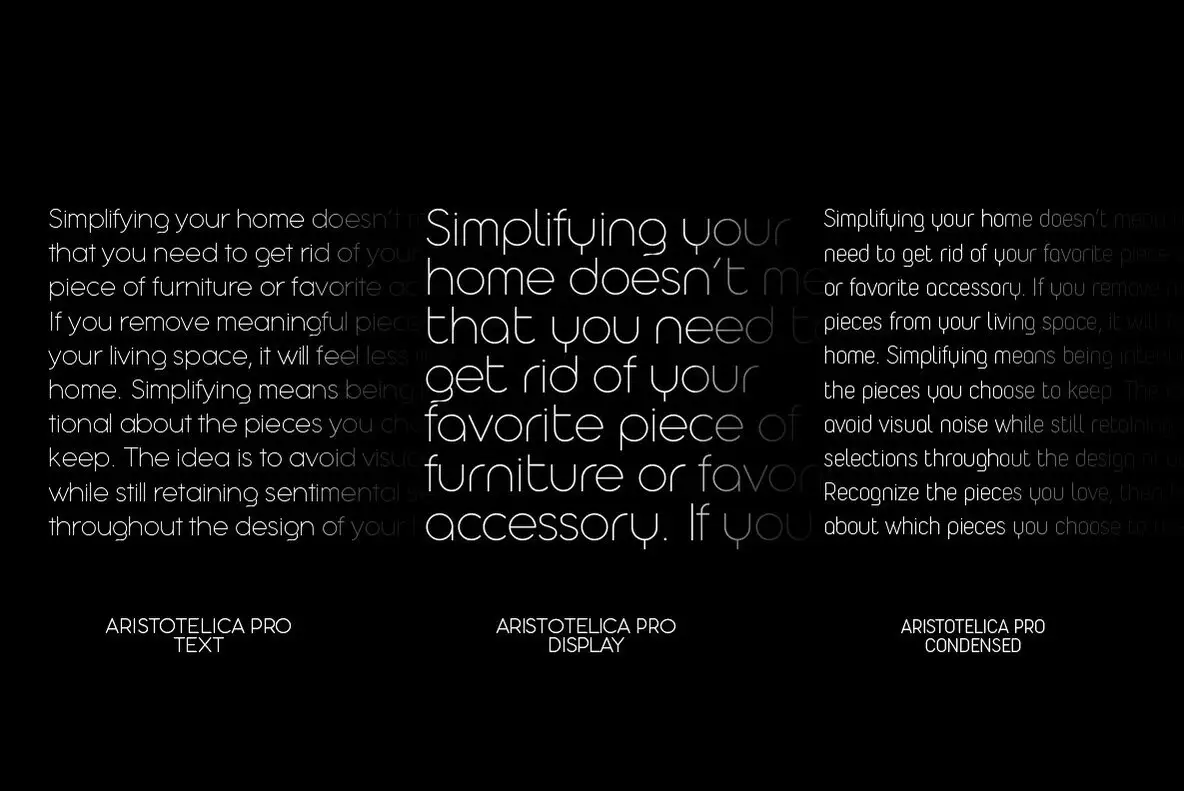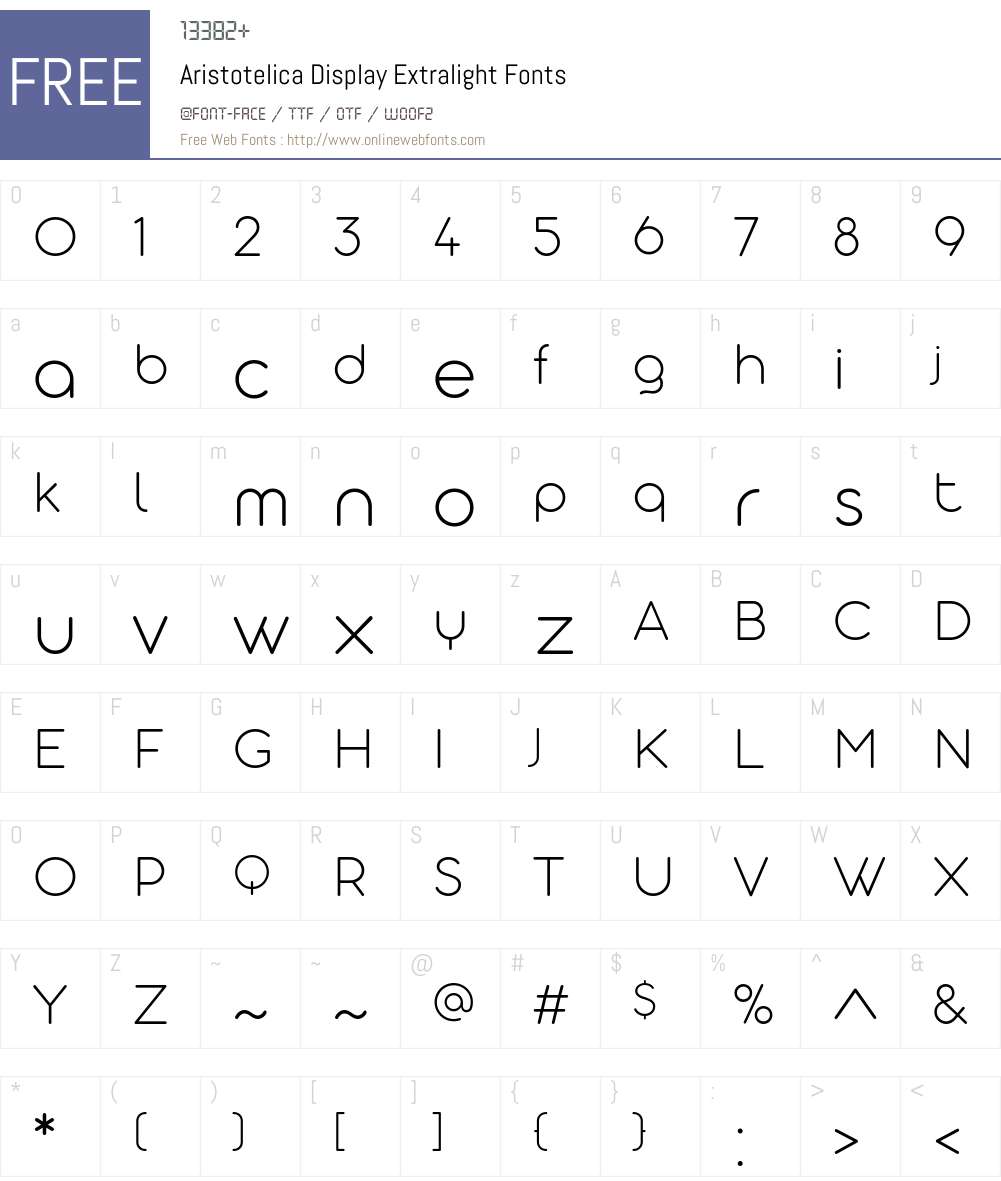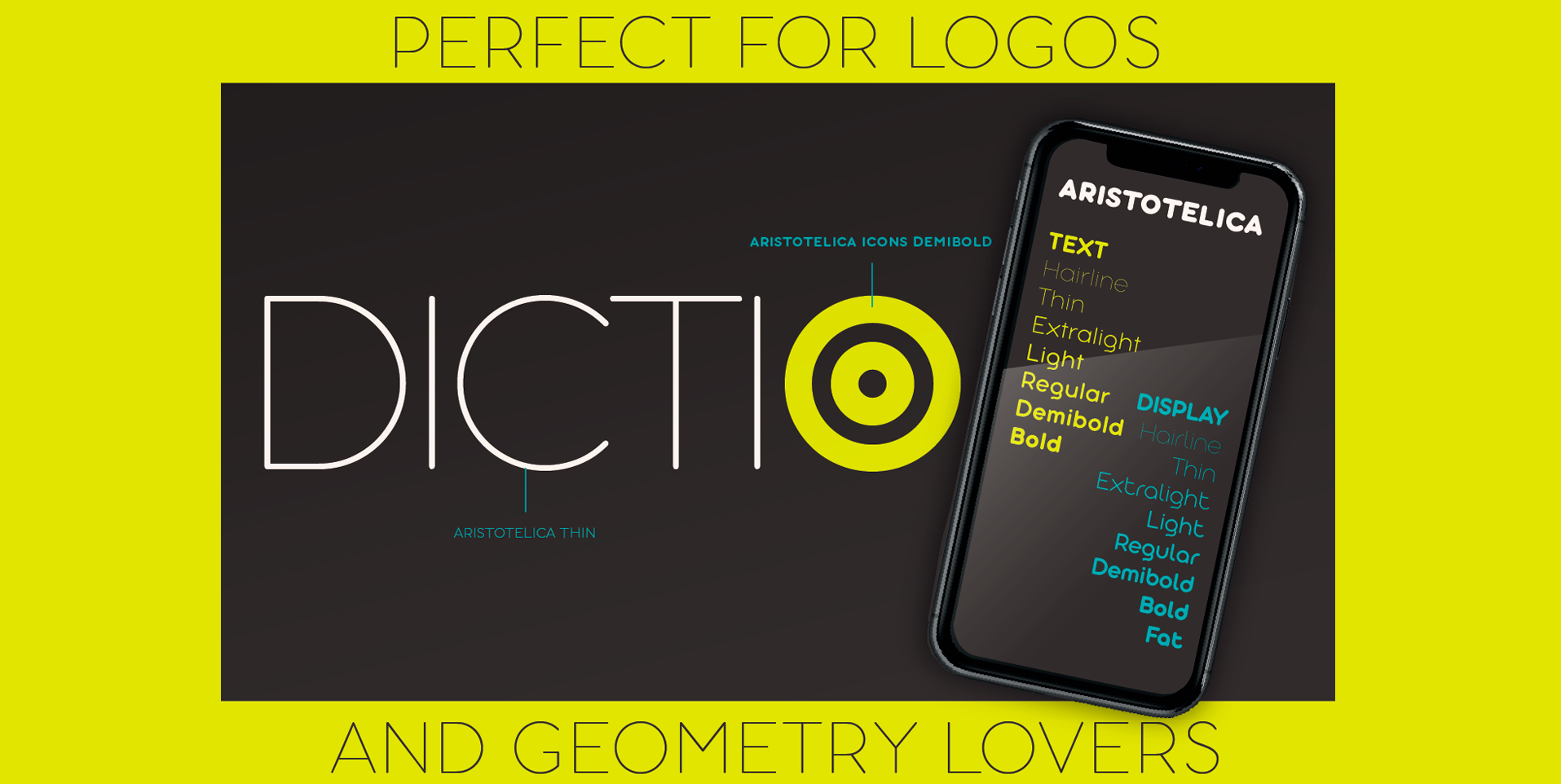
Aristotelica Pro Display Font Free Download . aristotelica pro display free download. aristotelica pro font free for personal use. all aristotelica fonts include greek and cyrillic alphabets as well as an extended range of latin characters, covering over. Contains alphabet letters and numbers, view font details, character map, customize. the aristotelica pro display extralight font allows you to take your projects to incredible heights. download aristotelica font family · free for personal use · this font is totally free for noncommercial. aristotelica pro is the 2020 redesign of the rounded geometric sans designed by cosimo lorenzo pancini and andrea tartarelli developing the original. Check and download for free. Please download and enjoy, or can search more similar fonts on befonts. it’s a refreshing sans serif font that is ready for anything! Link to purchase full version and.
Check and download for free. aristotelica pro is the 2020 redesign of the rounded geometric sans designed by cosimo lorenzo pancini and andrea tartarelli developing the original. it’s a refreshing sans serif font that is ready for anything! aristotelica pro font free for personal use. Please download and enjoy, or can search more similar fonts on befonts. all aristotelica fonts include greek and cyrillic alphabets as well as an extended range of latin characters, covering over. aristotelica pro display free download. Link to purchase full version and. download aristotelica font family · free for personal use · this font is totally free for noncommercial. Contains alphabet letters and numbers, view font details, character map, customize.
Aristotelica Pro Display Font Free Download aristotelica pro display free download. it’s a refreshing sans serif font that is ready for anything! download aristotelica font family · free for personal use · this font is totally free for noncommercial. all aristotelica fonts include greek and cyrillic alphabets as well as an extended range of latin characters, covering over. aristotelica pro display free download. Contains alphabet letters and numbers, view font details, character map, customize. the aristotelica pro display extralight font allows you to take your projects to incredible heights. Link to purchase full version and. Please download and enjoy, or can search more similar fonts on befonts. Check and download for free. aristotelica pro is the 2020 redesign of the rounded geometric sans designed by cosimo lorenzo pancini and andrea tartarelli developing the original. aristotelica pro font free for personal use.
Aristotelica font All Free Fonts Aristotelica Pro Display Font Free Download aristotelica pro is the 2020 redesign of the rounded geometric sans designed by cosimo lorenzo pancini and andrea tartarelli developing the original. Please download and enjoy, or can search more similar fonts on befonts. aristotelica pro display free download. download aristotelica font family · free for personal use · this font is totally free for noncommercial. . Aristotelica Pro Display Font Free Download.
Download free Aristotelica Pro Display Extralight font zetafonts Aristotelica Pro Display Font Free Download it’s a refreshing sans serif font that is ready for anything! the aristotelica pro display extralight font allows you to take your projects to incredible heights. Link to purchase full version and. Contains alphabet letters and numbers, view font details, character map, customize. all aristotelica fonts include greek and cyrillic alphabets as well as an extended range. Aristotelica Pro Display Font Free Download.
Aristotelica Pro Font Family All Free Fonts Aristotelica Pro Display Font Free Download Check and download for free. aristotelica pro display free download. aristotelica pro font free for personal use. aristotelica pro is the 2020 redesign of the rounded geometric sans designed by cosimo lorenzo pancini and andrea tartarelli developing the original. Contains alphabet letters and numbers, view font details, character map, customize. download aristotelica font family · free. Aristotelica Pro Display Font Free Download.
Aristotelica Display font download for , Figma or Aristotelica Pro Display Font Free Download the aristotelica pro display extralight font allows you to take your projects to incredible heights. aristotelica pro is the 2020 redesign of the rounded geometric sans designed by cosimo lorenzo pancini and andrea tartarelli developing the original. Please download and enjoy, or can search more similar fonts on befonts. Contains alphabet letters and numbers, view font details, character. Aristotelica Pro Display Font Free Download.
Download free Aristotelica Display Trial DemiBold font Aristotelica Pro Display Font Free Download all aristotelica fonts include greek and cyrillic alphabets as well as an extended range of latin characters, covering over. it’s a refreshing sans serif font that is ready for anything! aristotelica pro font free for personal use. Please download and enjoy, or can search more similar fonts on befonts. aristotelica pro display free download. Link to. Aristotelica Pro Display Font Free Download.
Download free Aristotelica Display Trial DmBd Regular font Aristotelica Pro Display Font Free Download Link to purchase full version and. Check and download for free. aristotelica pro font free for personal use. it’s a refreshing sans serif font that is ready for anything! download aristotelica font family · free for personal use · this font is totally free for noncommercial. Please download and enjoy, or can search more similar fonts on. Aristotelica Pro Display Font Free Download.
Aristotelica Display font free download for WEB Aristotelica Pro Display Font Free Download the aristotelica pro display extralight font allows you to take your projects to incredible heights. Contains alphabet letters and numbers, view font details, character map, customize. aristotelica pro display free download. it’s a refreshing sans serif font that is ready for anything! download aristotelica font family · free for personal use · this font is totally. Aristotelica Pro Display Font Free Download.
Aristotelica Pro Font YouWorkForThem Aristotelica Pro Display Font Free Download Contains alphabet letters and numbers, view font details, character map, customize. all aristotelica fonts include greek and cyrillic alphabets as well as an extended range of latin characters, covering over. Please download and enjoy, or can search more similar fonts on befonts. aristotelica pro is the 2020 redesign of the rounded geometric sans designed by cosimo lorenzo pancini. Aristotelica Pro Display Font Free Download.